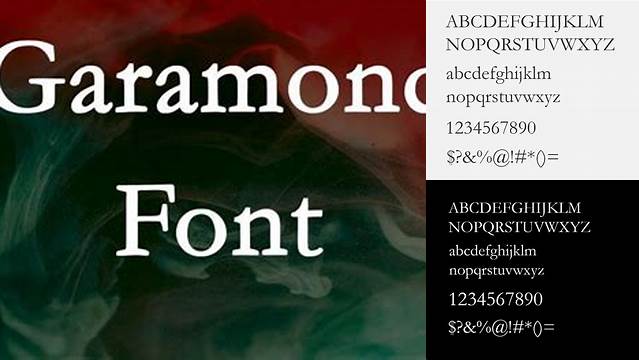
Are you looking to add a touch of classic elegance to your designs? Then, guys, you've come to the right place! The Garamond font family has been a favorite among designers for centuries, and for good reason. Its timeless appeal and readability make it perfect for a wide range of projects, from books and magazines to websites and branding materials. And the best part? You can often find Garamond fonts available for free! In this comprehensive guide, we'll dive into everything you need to know about Garamond fonts, including their history, characteristics, and where to find them for free.
What is Garamond Font?
So, what exactly is Garamond? The Garamond typeface is a group of old-style serif typefaces. These fonts are known for their beautiful, elegant, and readable qualities, making them a popular choice for body text in books, magazines, and other print materials. It originated in the 16th century, designed by Claude Garamond, a Parisian engraver. Garamond's fonts were based on the designs of Venetian printers, like Aldus Manutius, who pioneered the use of italic typefaces. Garamond's work was characterized by its refined letterforms, graceful curves, and excellent readability. The original Garamond fonts were primarily used for printing books, and they quickly became known for their beauty and clarity. These fonts are still widely used today and are considered classic typefaces, embodying a timeless aesthetic. Garamond fonts have a long history and have been used in countless publications, from classic literature to modern-day magazines. The enduring popularity of Garamond is a testament to its timeless design and readability.
When we talk about the characteristics of Garamond fonts, we are talking about the details that set this typeface apart from other fonts. Key features include: the italic letterforms which are graceful and elegant, with a slight slant that adds visual interest. The serifs have a distinctive shape, often with a slight curve or a pointed tip, giving them a refined look. Garamond also offers high readability, even at small sizes, making it ideal for body text. Its overall appearance is warm and inviting, with a classical feel that evokes a sense of tradition and sophistication. Finally, it has subtle variations, which create a dynamic and engaging visual experience. These characteristics make Garamond a versatile font that can be used in various contexts, from print to digital media, while still maintaining its distinctive personality.
The History of Garamond
The history of Garamond fonts is a fascinating journey through the evolution of typography. The story begins in the mid-16th century with Claude Garamond, a French punch-cutter and printer. Garamond's work was influenced by the humanist script of Renaissance Italy. His fonts were based on the designs of Venetian printers, such as Aldus Manutius. Garamond's contribution to typography was significant, as he created a set of letterforms that were both beautiful and highly legible. His fonts quickly gained popularity in France and across Europe, becoming the standard for book printing. Garamond's legacy continued to evolve over the centuries, with various revivals and interpretations of his original designs. Today, Garamond fonts are still widely used and are considered classics, embodying the elegance and sophistication of a bygone era. They represent a significant milestone in the history of typography, influencing generations of designers.
- Behance and Dribbble: These platforms showcase the work of designers, and many of them offer free fonts as part of their design projects. Search for Garamond-inspired fonts and look for those that are available for free download. In many cases, you will be able to find fonts that are free for both personal and commercial use.